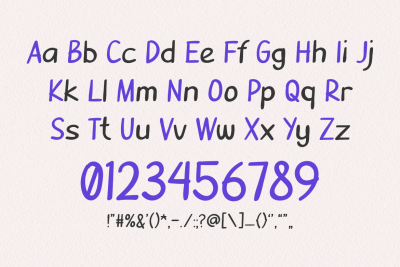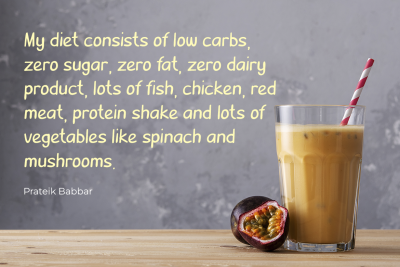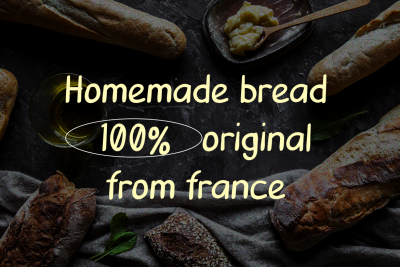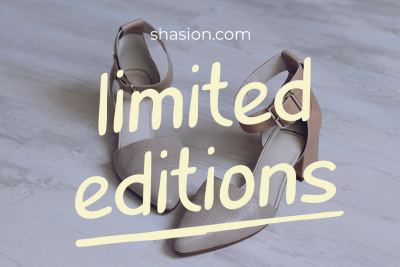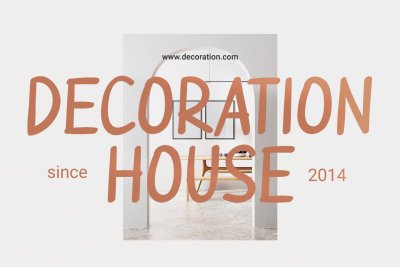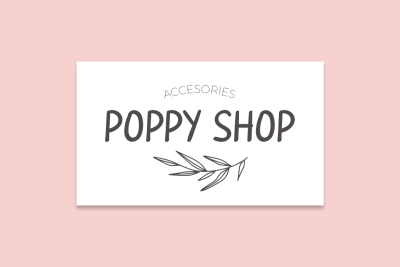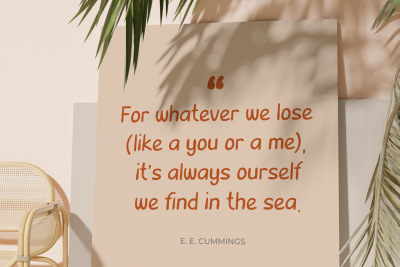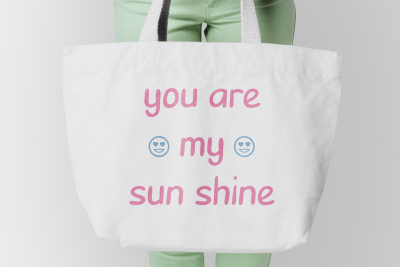
Cute Font Marinda is a charming, playful typeface designed to bring warmth to any creative project. With soft curves and smooth strokes, Marinda creates a cozy, welcoming feel. Moreover, it is perfect for designs needing a gentle and heartfelt touch. The rounded edges and natural letter flow give it an organic, hand-drawn look. Consequently, this makes it stand out in both digital and print applications.
Marinda is highly versatile and works beautifully for branding, social media, packaging, and personal projects. Additionally, it balances elegance and casual fun, making it stylish yet approachable. Whether for greeting cards, wedding invitations, packaging, or Instagram posts, Marinda adds unique personality. If you want a font that feels warm, friendly, and beautiful, then Marinda is the perfect choice.
Who Should Use Cute Font Marinda?
Cute Font Marinda is for creatives, brands, and individuals seeking soft, playful charm in their designs. Specifically, it is ideal for:
- Lifestyle & Beauty Brands โ Marindaโs stylish curves suit beauty products, skincare brands, and fashion boutiques wanting a soft, modern look.
- Social Media Influencers & Content Creators โ Its inviting style makes it great for Instagram captions, Pinterest graphics, YouTube thumbnails, and lifestyle blogs. Furthermore, its versatility enhances social media aesthetics.
- Event & Wedding Planners โ The romantic, handwritten look fits wedding invitations, event signage, and elegant stationery perfectly. As a result, it adds a touch of sophistication to any event.
- Handmade & Craft Businesses โ Etsy shop owners and craft businesses benefit from Marindaโs charming, handcrafted feel. Therefore, it helps products stand out in a unique and appealing way.
- Childrenโs Books & Educational Materials โ Its playful, soft structure works well for childrenโs books, worksheets, and classroom projects. In turn, it makes learning materials more engaging and visually appealing.
- Greeting Cards & Personal Projects โ The friendly appearance makes it ideal for heartfelt greeting cards, letters, and DIY designs. Consequently, it brings warmth and sincerity to every creation.
Cute Font Marinda is more than a typefaceโitโs a reflection of warmth, creativity, and joy. Whether for personal projects or branding, Marinda ensures your message is not only beautiful but also inviting.